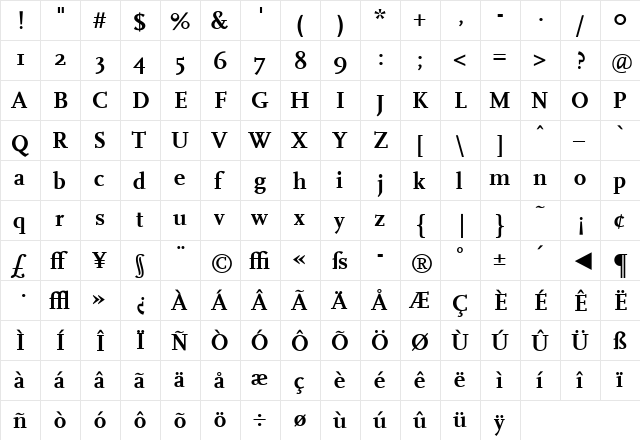
Cscala Bold
Design Context for Cscala Typeface
Cscala is a composed and adaptable typeface that performs quietly and consistently across a wide range of design contexts. The heavy weight commands attention and anchors typographic hierarchies.